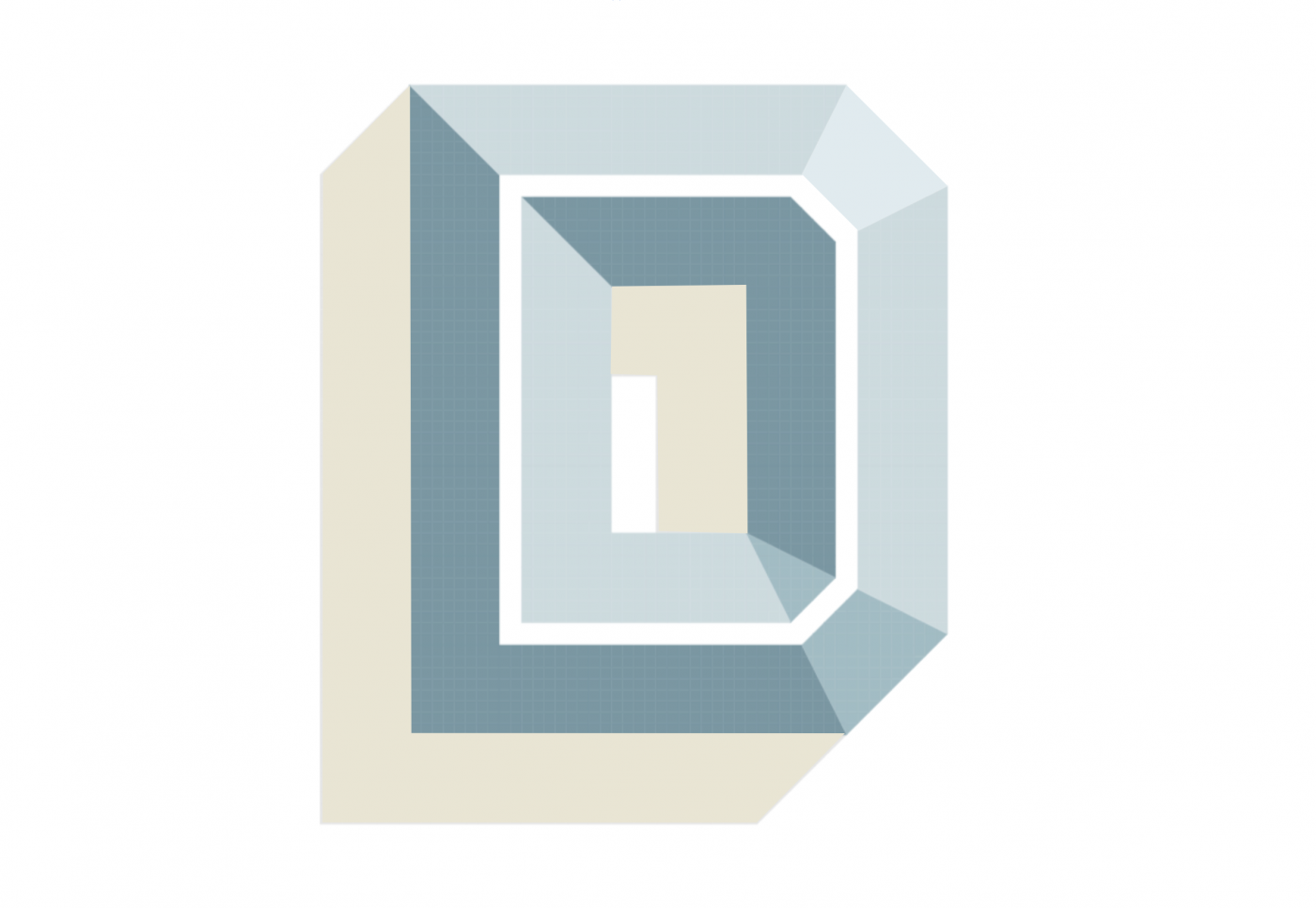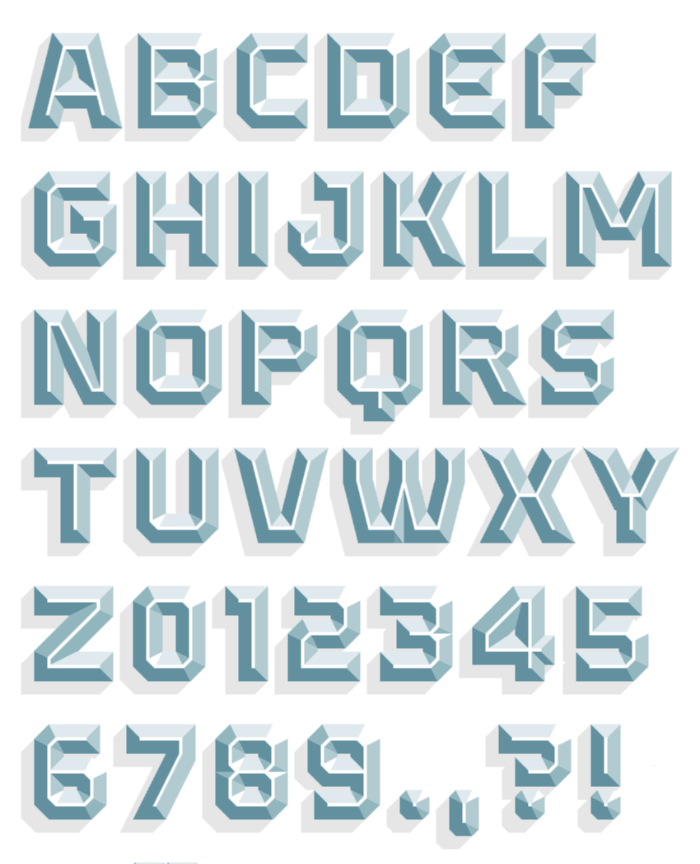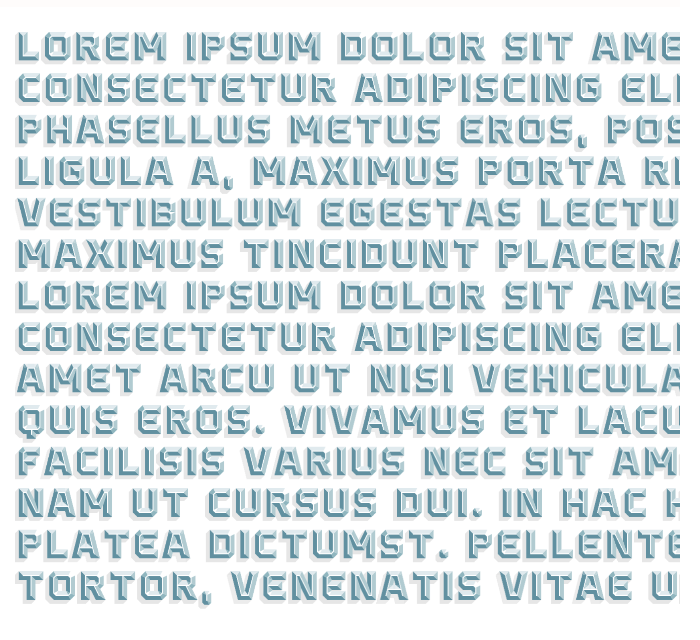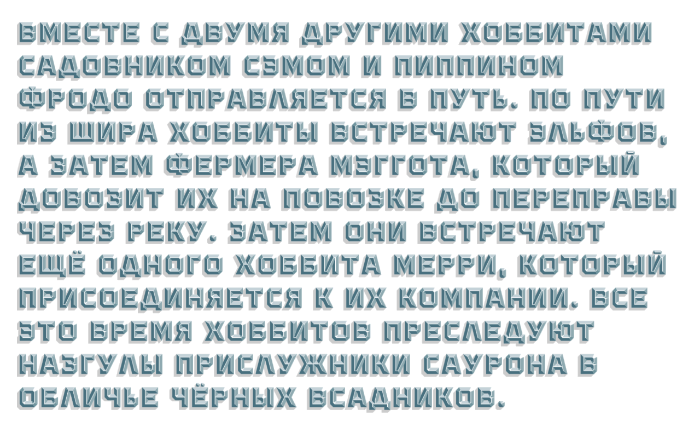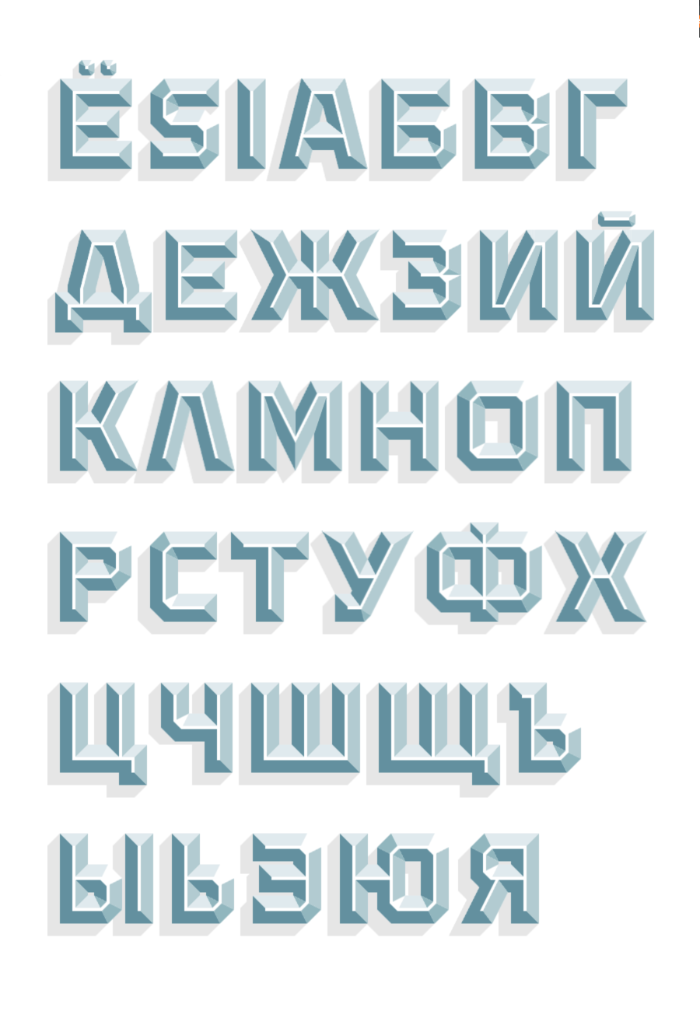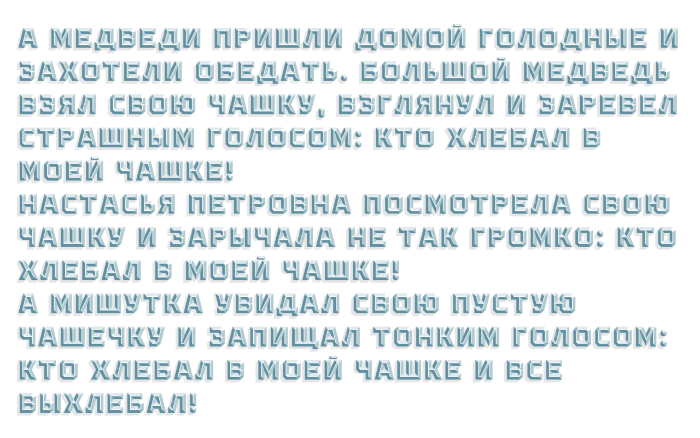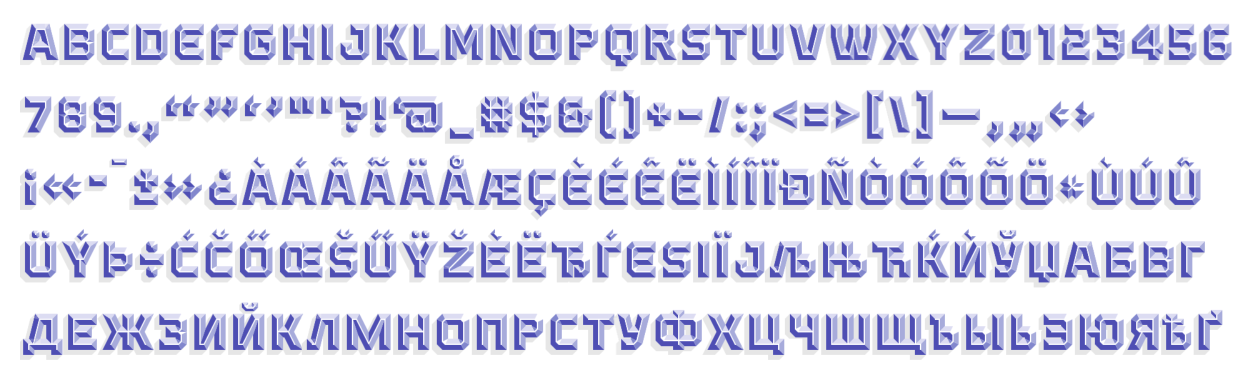
This fontstruction was meant to enter the competition, but I won't be able to finish it. I started it late, and it took way more time to solve some problems than I expected. Still, it was fun to work on it and feel the Fontstruct vibe at the same time. I decided to make it public as it is, incomplete, because it belongs to this particular online event. Needless to say, I won't enter it in the ColorComp. Winning or losing doesn't matter much. To be alive, healthy, and happy means everything!
The "R" looks like a "P". Can you fix it please?
Beautiful.
It's a beauty. It deserves to be finished.
I dare to make a suggestion: to add a very soft color to avoid the white light areas on the letters and to make the shadow a little warmer... What do you think? (I beg your pardon, today is being to me a very unconventional day).
@elmoyenique: Thank you for your comment. I am open-minded to any improvement. The white colour on the top right is a feature: the glittering light, a strong reflection. It doesn't matter that the background and the inline are also white, and they occasionally merge. The illusion of the third dimension is created in our brain. The brain interprets the angles and shades of colour as 3D geometry, even if they are not perfect (photorealistic).
Warm shadows are created by warm light and/or warm-coloured objects.
This is only my first colour scheme. It took me almost a whole day to get the colours right. I might explore other variations in the future.
Congratulations on completing the capitals and numerals—this looks gorgeous!
Just one suggestion: the angled strokes of the 'Y' might benefit from a steeper slant to better accommodate surrounding characters. As it stands, there's quite a bit of whitespace between the 'Y' and adjacent letters when used in words. While kerning can help minimise this, I think adjusting the glyph's contours would offer a more effective and lasting solution.
@faux_icing: Thank you for your comment. A steeper angle for the Y would mess up the whole geometry. Kerning will help to distribute the white space more evenly. I don't do full kerning in Fontstruct, however.
@Goatmeal: Thank you for the clarification. Looking back on the last week, with the complexity of this font and the numerous iterations required for some letters, I can clearly state that I could not have possibly finished this work by the June 30th deadline. So, what to do then? I won't scrap a good design concept just because of being late. I'll finish this job and enjoy myself while doing so.
Wonderful!
Text sample without kerning.
The Cyrillic set is nearly complete. (Russian text sample from Wikipedia - LoTR)
I have updated the Д, Л, and У. Still no kerning.
This looks pretty nice so far…
Very nice update! Personally, I prefer these Д and Л designs better than the previous, more symmetrical ones.
@Bryndan W. Meyerholt (BWM) and elmoyenique: Thank you for your comments. I hope the Russian experts will agree with you.
There is still much work to be done on this project. First, I have to fix the diacritics. The breve (краткое) is not acceptable. It looks more like the macron. A few essential punctuation marks are missing (quotation marks, parentheses, brackets, em dash). Perhaps I will fine-tune the colour scheme and do some basic kerning as well.
The Cyrillic set will support the following languages: Russian, Bulgarian, Belarusian, Ukrainian, Rusyn, Moldovan, Serbian, Macedonian, and Montenegrin. On the Latin side, it's more complicated. I'm not sure I can cover all European languages.
Most people on FS totally misunderstand what font design is about. Creating a new font is not a short dash; it's like a marathon. Historically, it took months, even years, to complete a typeface: careful planning, meticulous work, small adjustments, numerous revisions, and thorough testing. It is similar to working on a model sailing ship. It won't give you a quick dopamine rush.
The character set. Not too shabby. I think it's time to fine-tune the colours.
I think the font is great! I can tell it took a long time to visualize and map out! Beautiful...
the best